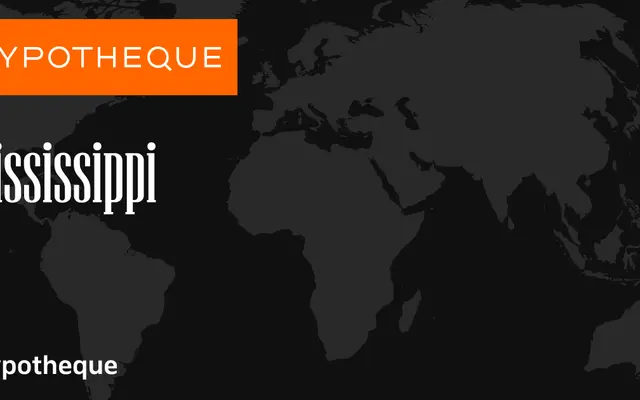
Mississippi specimen from Typotheque
A display serif family from Typotheque built around positional ornamental variations, with ten subfamilies named after world cities.
Each subfamily corresponds to a distinct treatment of stroke terminals and corner details, described by their position: Bottom Inside, Bottom Left, Bottom Right, Bottom Outside, Top Inside, Top Left, Top Right, Top Outside, and so on. The system yields a broad palette of decorative voices from a shared skeleton, available in Regular and Black weights. Suited to editorial headlines, branding and display contexts where typographic ornamentation needs systematic control.
Mississippi is structured around decorative corner and stroke treatments, with named subfamilies reflecting positional variations on serifs and ornamental details, placing it firmly in the display category.